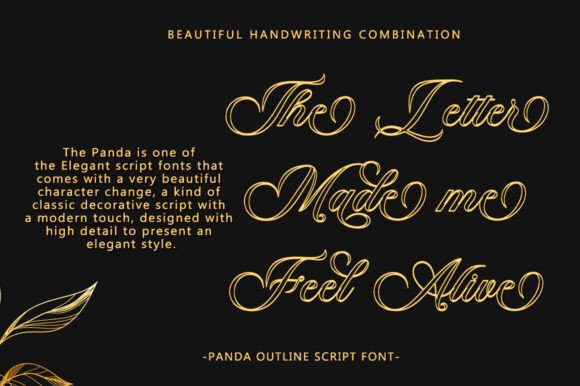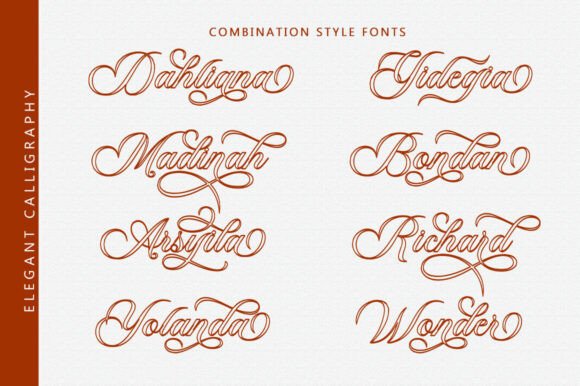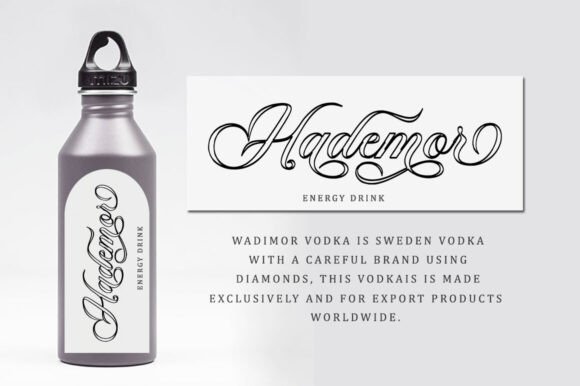
Introduction to Panda Outline Font
As I sat at my desk, staring at a blank sheet of paper, I knew exactly what my creative project needed – a touch of elegance. The right font can make all the difference in bringing a design to life, and I was on the hunt for something special. That’s when I stumbled upon the Panda Outline Font, and I knew I had found my perfect match.
This beautiful script font has been a game-changer for designers like me, offering a unique blend of classic and modern style that’s both visually appealing and easy to read. With its luxurious letter connections and transparent background, it’s the perfect design resource for creating high-quality materials that stand out from the crowd.
Panda Outline Font
- Transparent background for seamless integration with various designs
- Supports a wide range of languages and characters
- Unique outline design style with a playful and whimsical feel
Honest Review: Panda Outline Font
- High-quality outlines: The font’s lines are crisp and clean, making it perfect for designs that require a bit of whimsy.
- Transparent background: This feature allows for seamless integration into any design, whether it’s a background or a foreground element.
- Customization options: The font can be easily customized to fit any project’s needs, from color schemes to size adjustments.
- Limited character set: While the font is perfect for logos and icons, it’s not ideal for large blocks of text.
- Dependence on a clear background: Without a clear background, the outlines can become distorted, affecting the overall design.
Overall, the Panda Outline Font is a solid addition to any designer’s toolkit. Its unique style and high-quality outlines make it perfect for creative projects. With a few limitations in mind, I highly recommend giving it a try for your next design challenge.
Panda Outline Font
The Panda Outline Font is a versatile design resource that can be used for a variety of creative projects, including:
- Infographic design